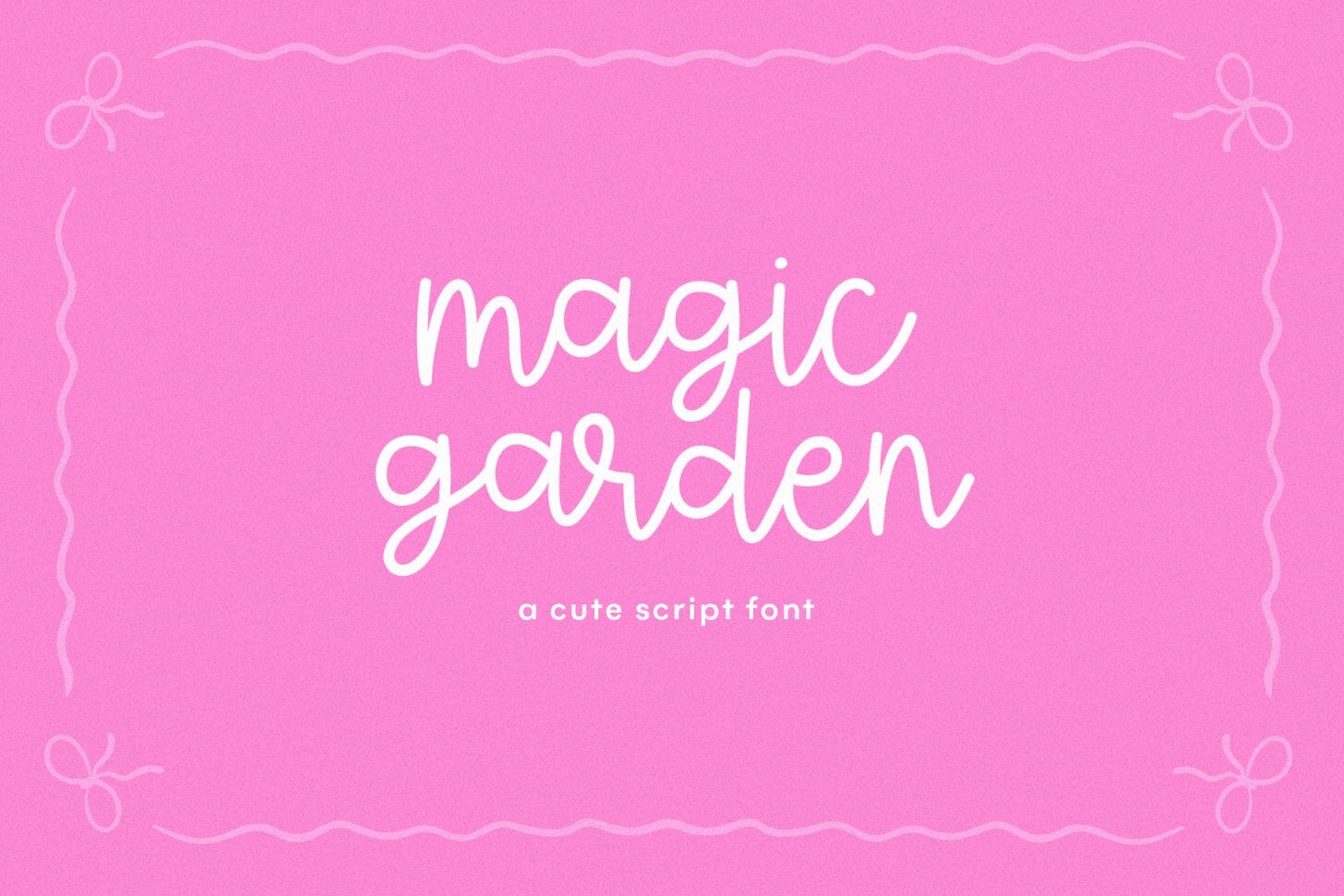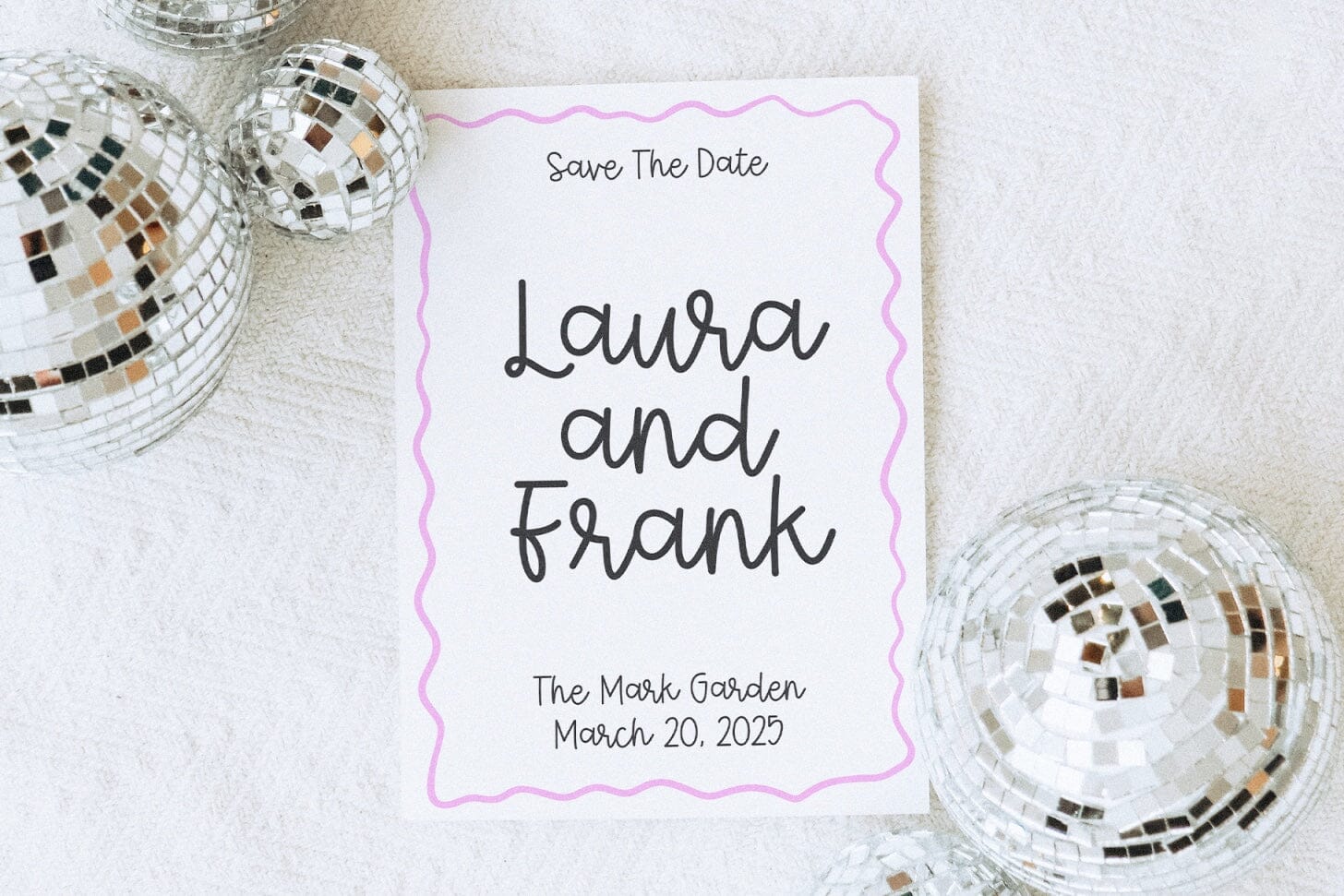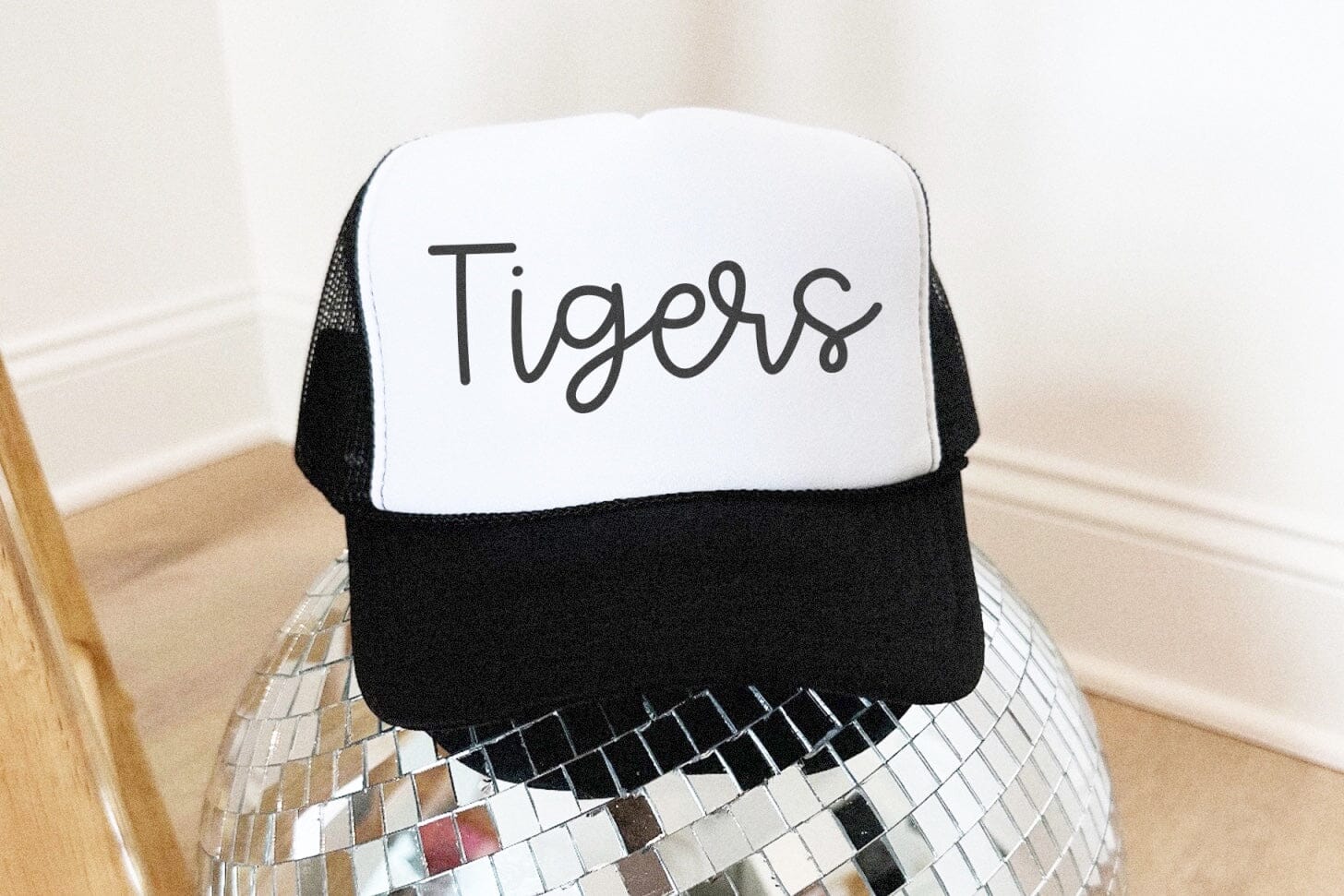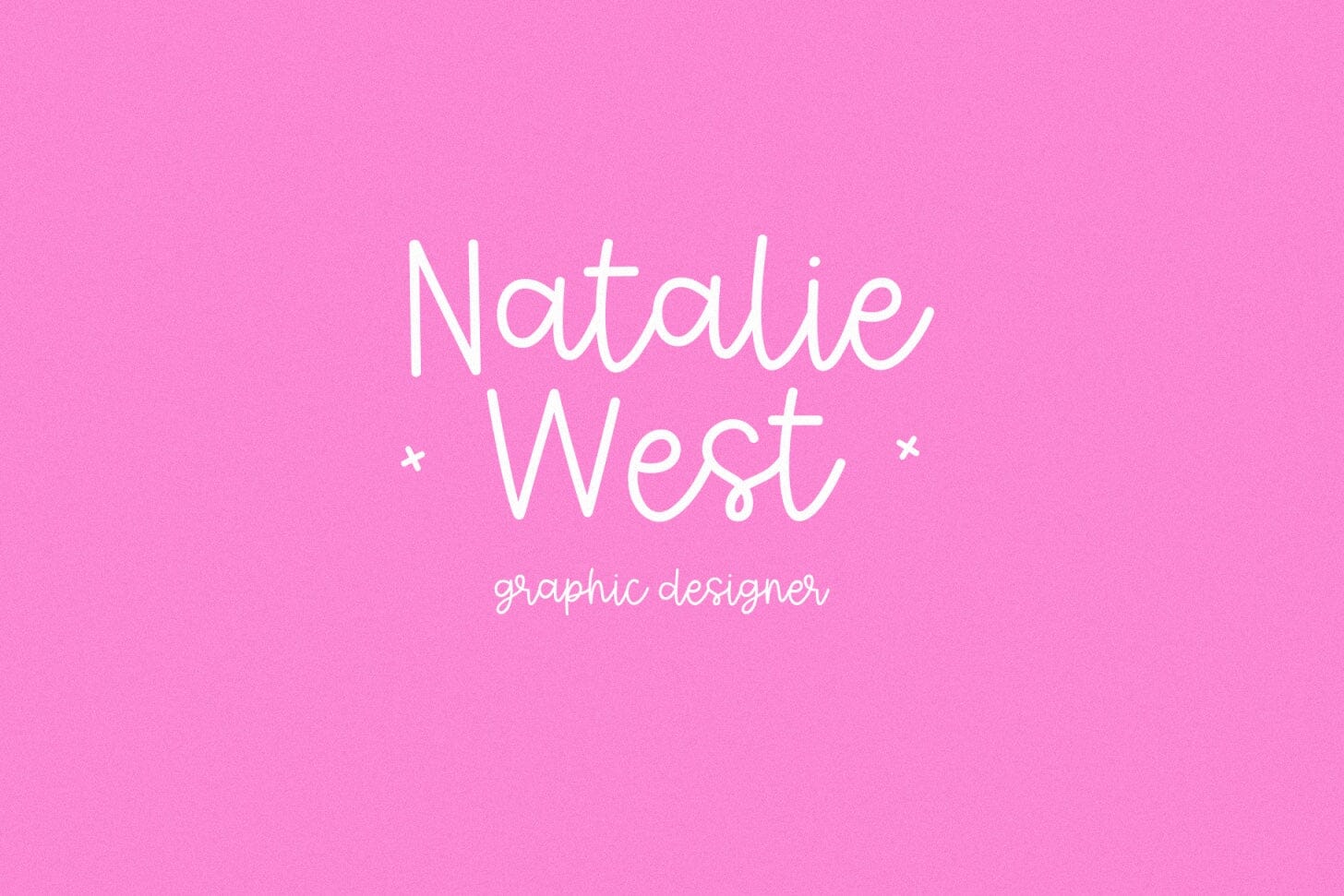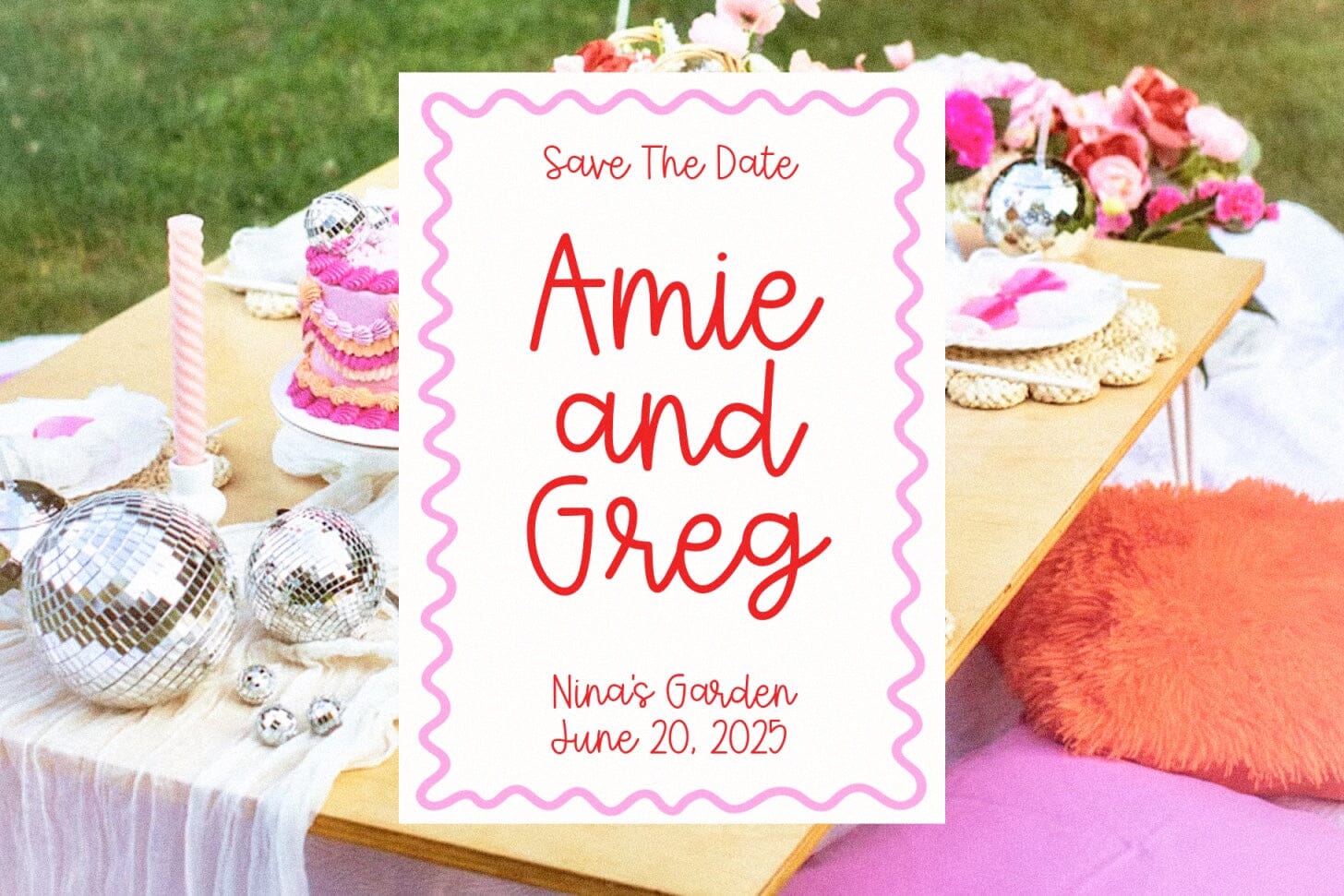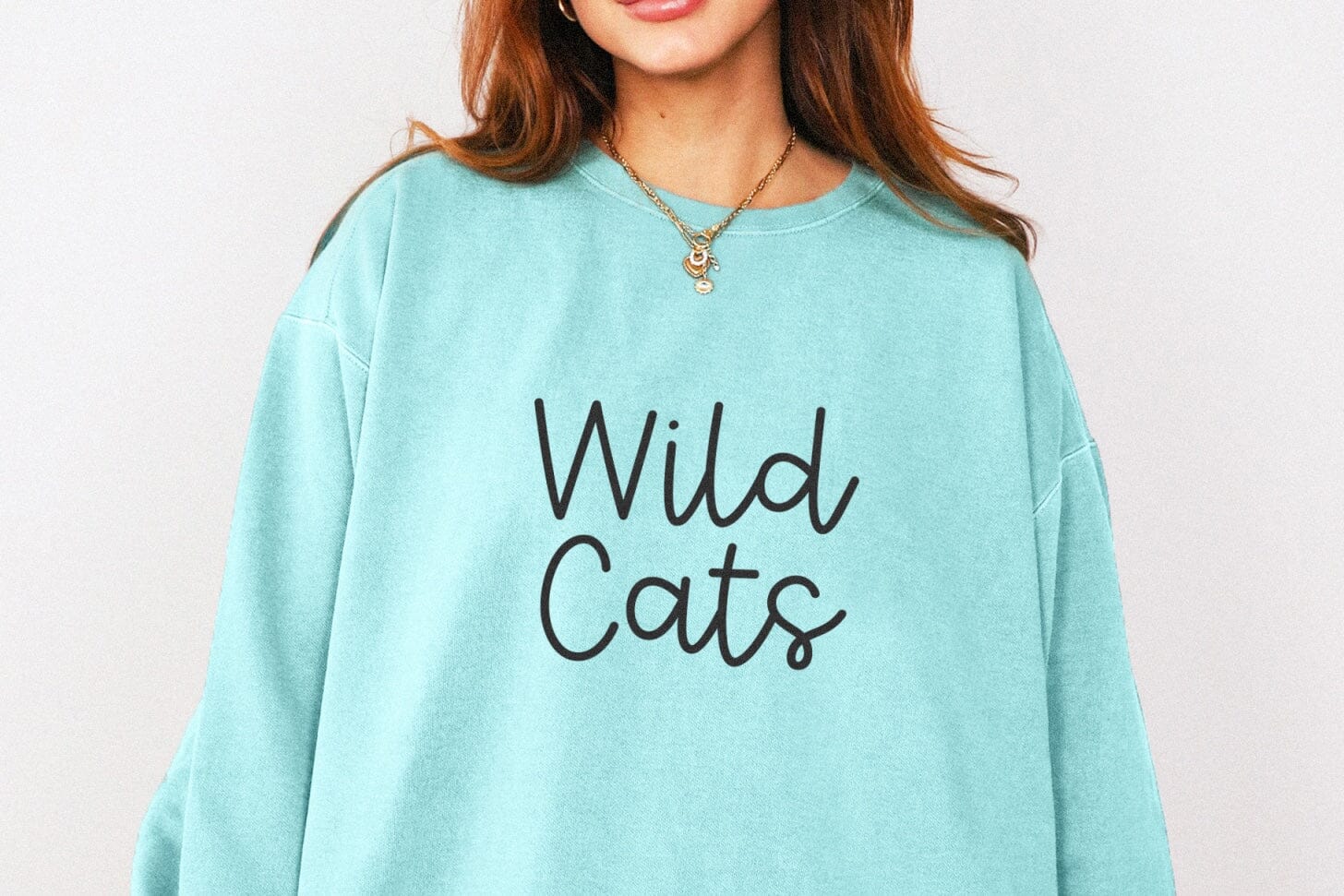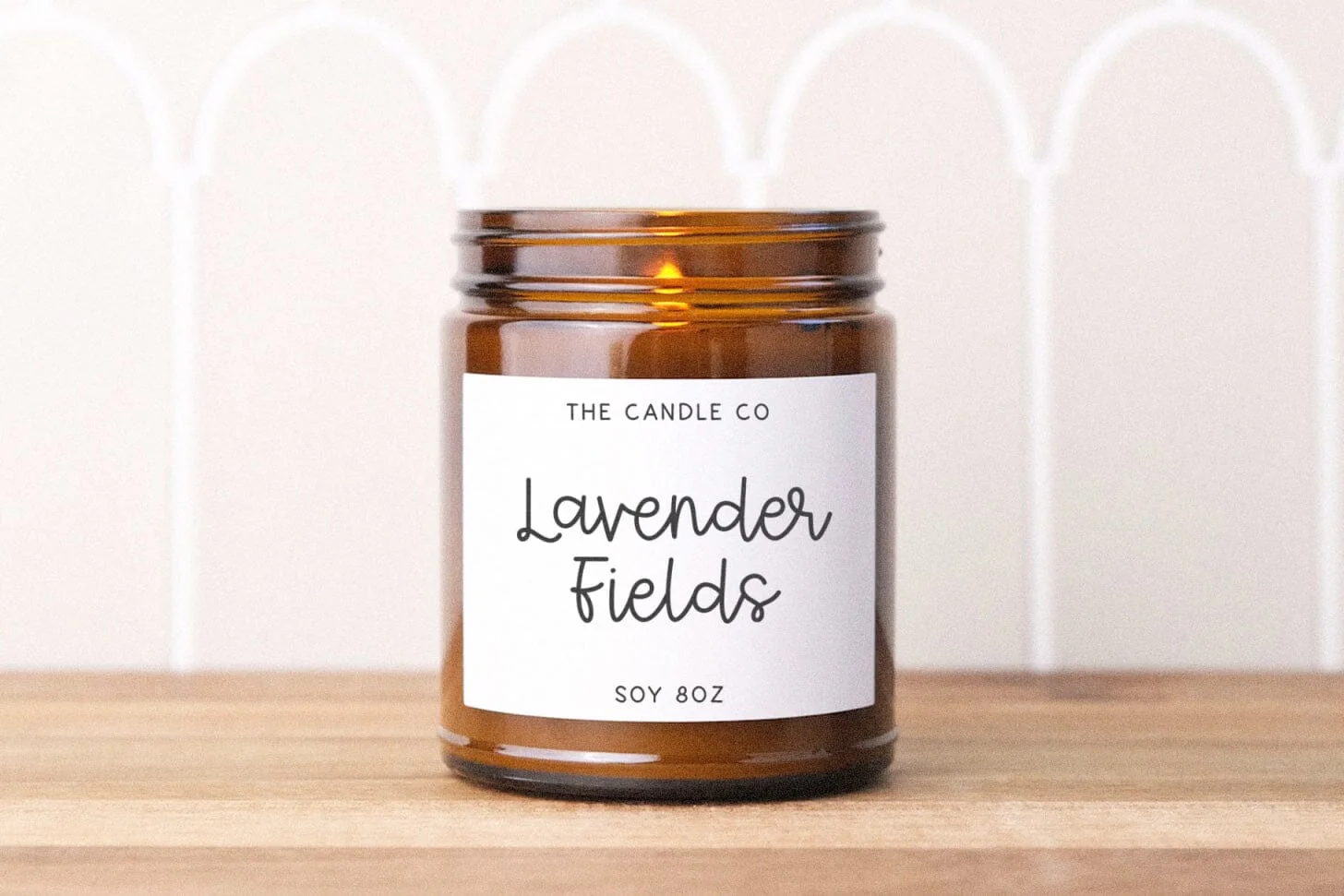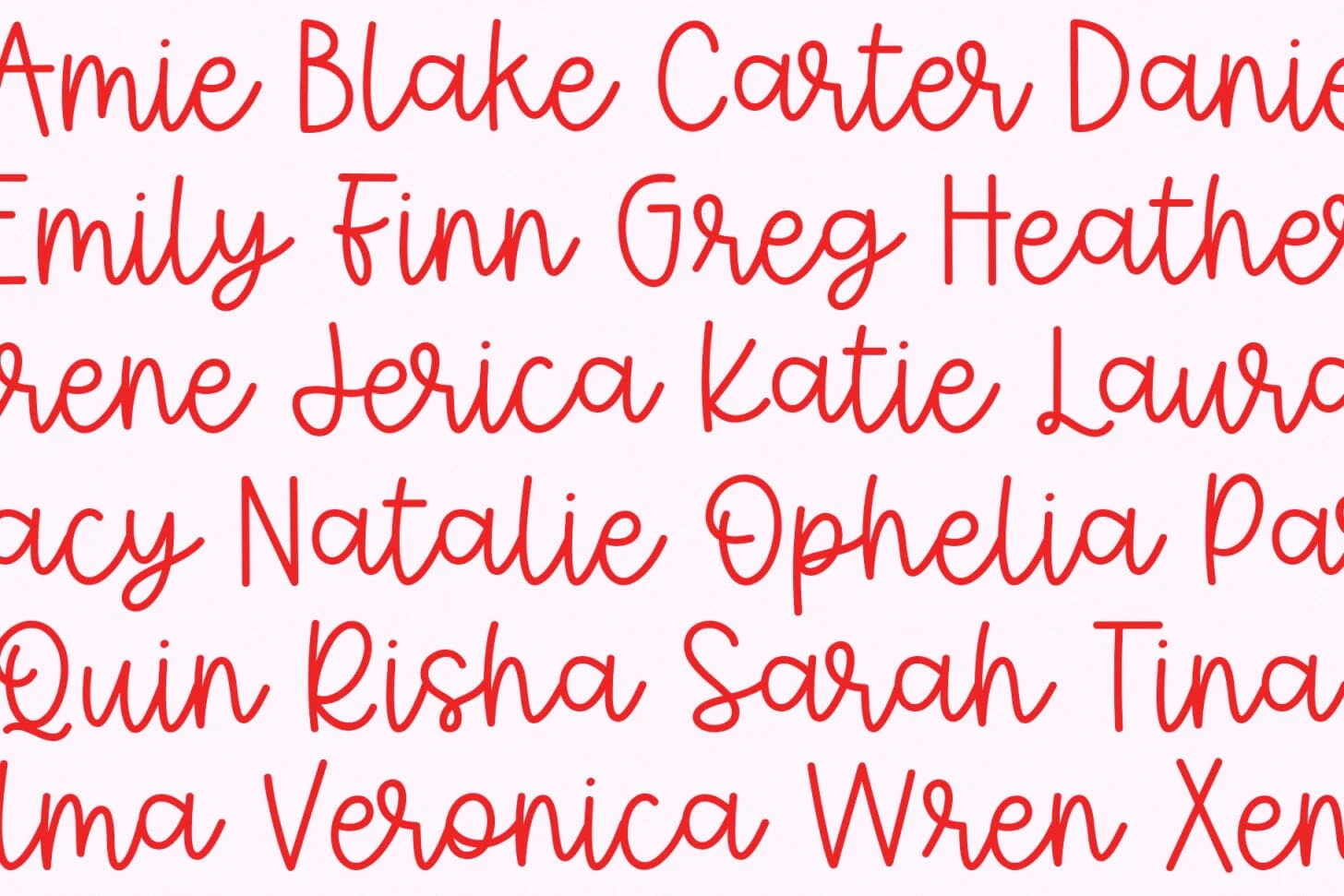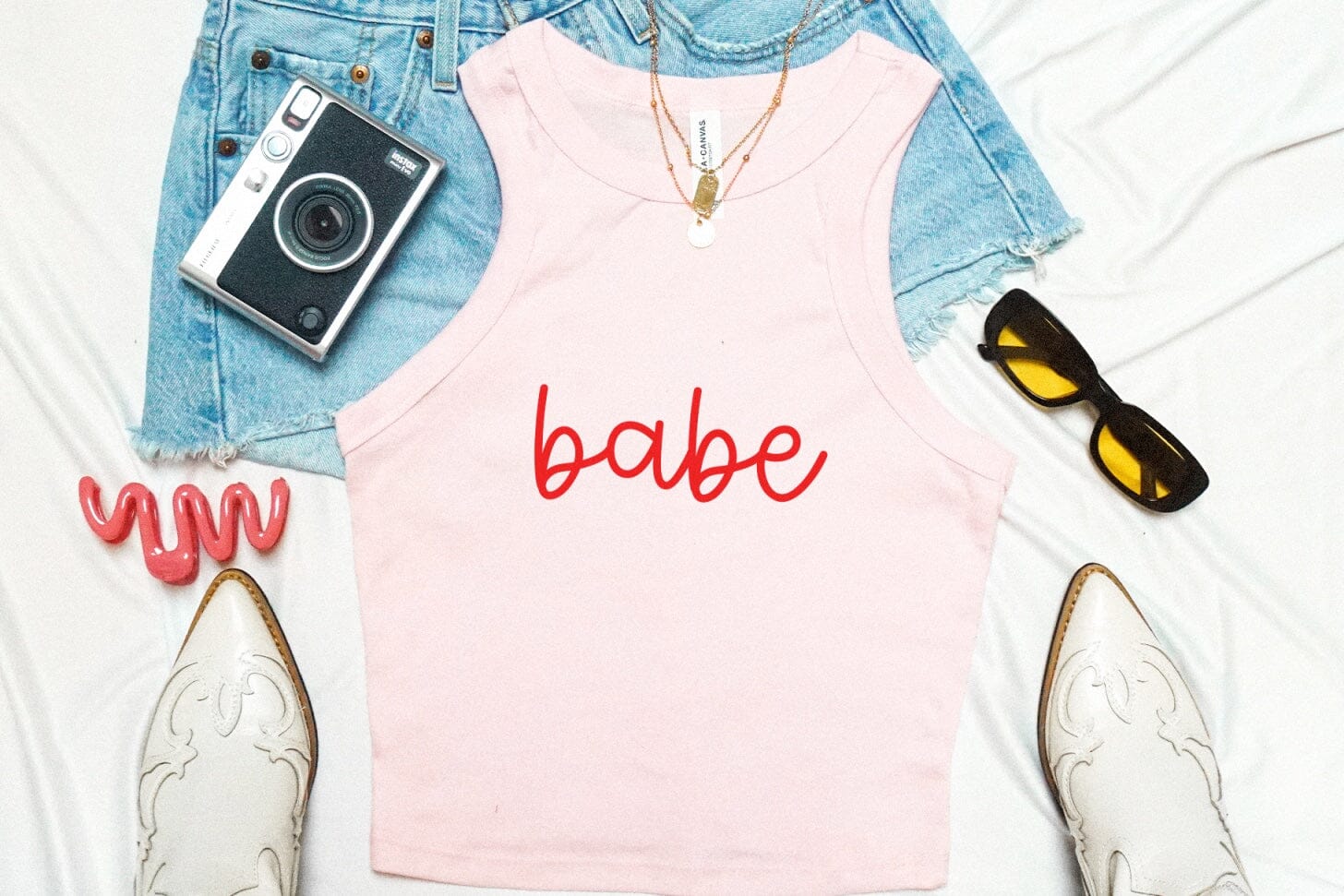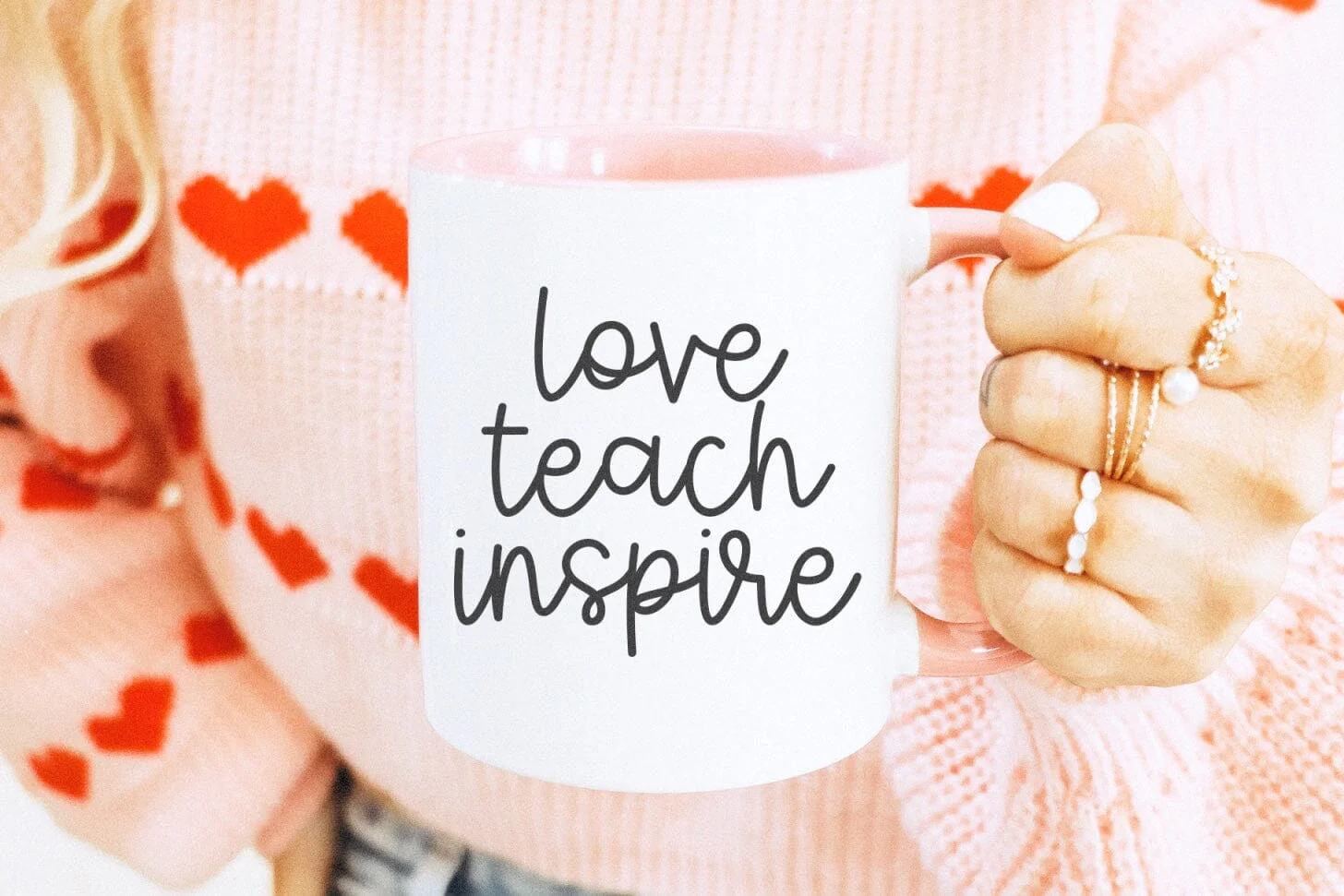
Magic Garden - Cute Handwritten Font
Magic Garden is a cute script font!
This font is perfect for cricut projects, logos, shirts, svg files, planners, stickers, quotes, social media and more!